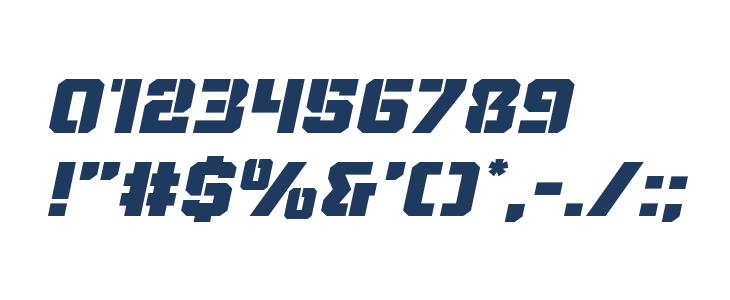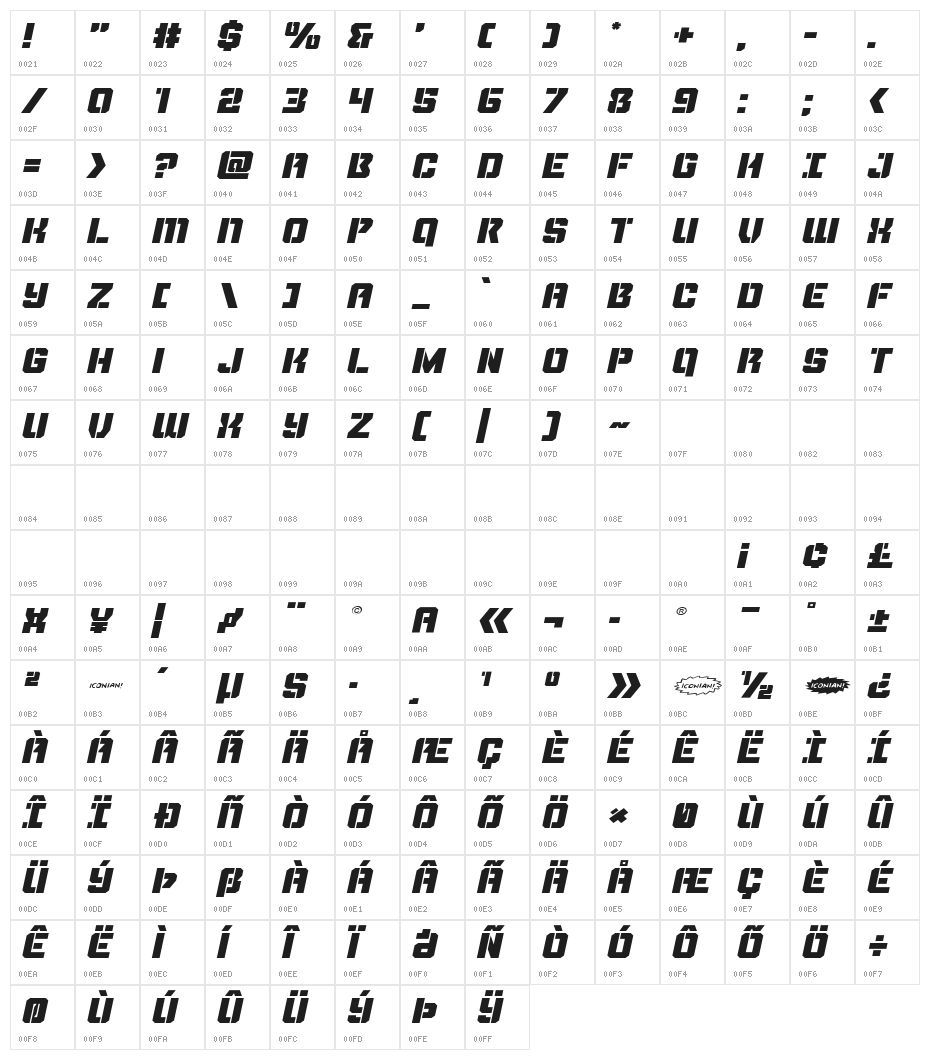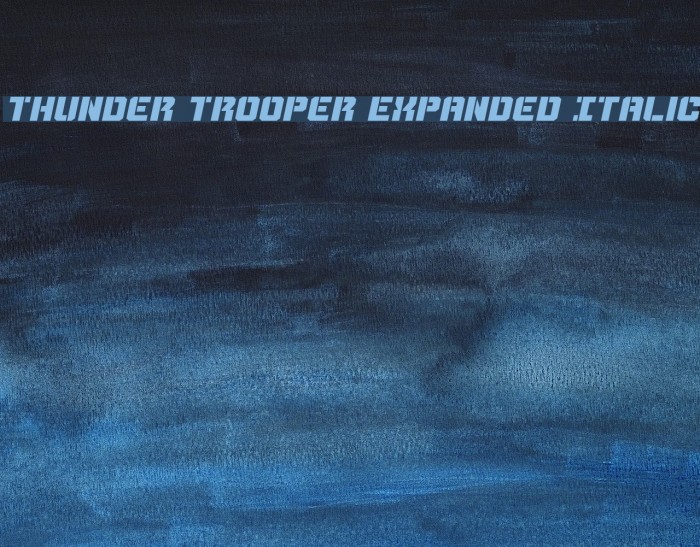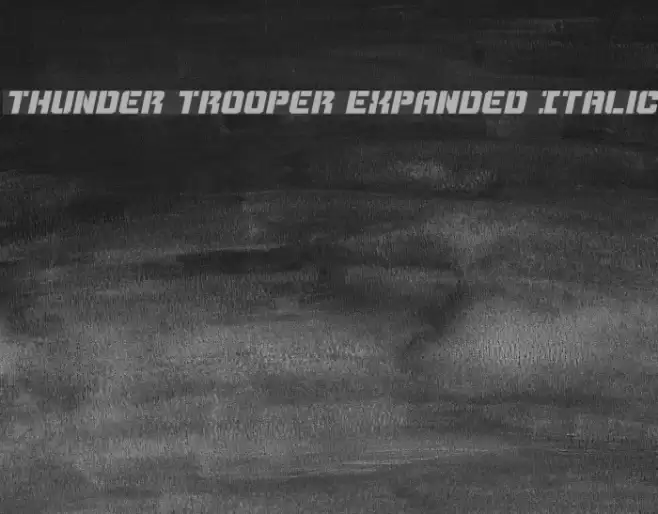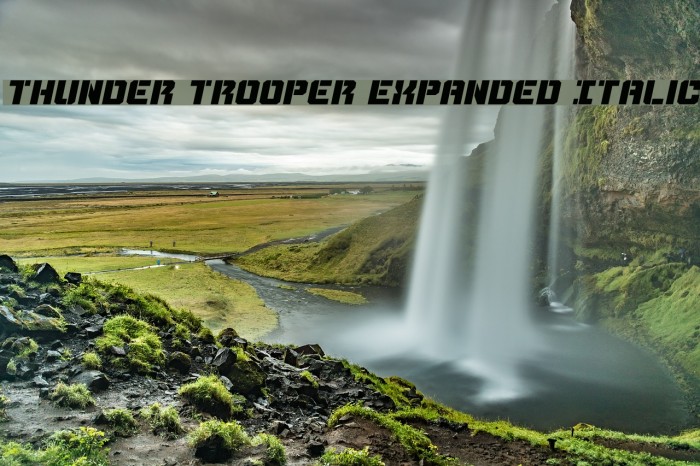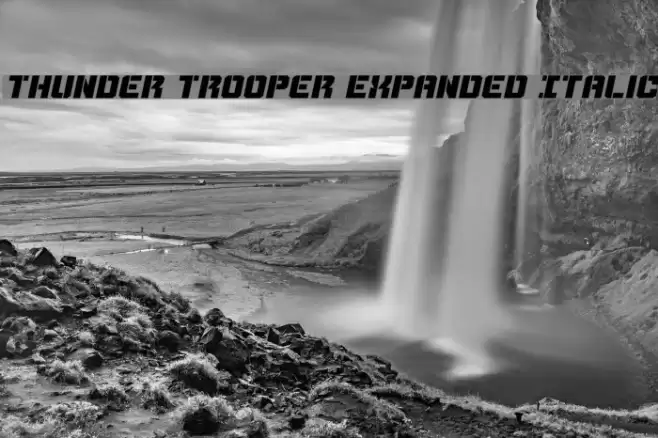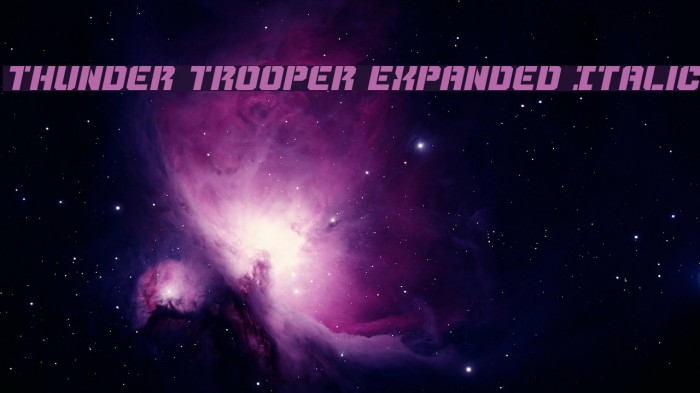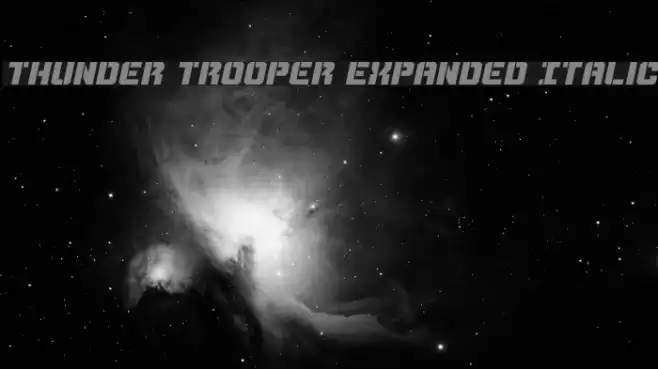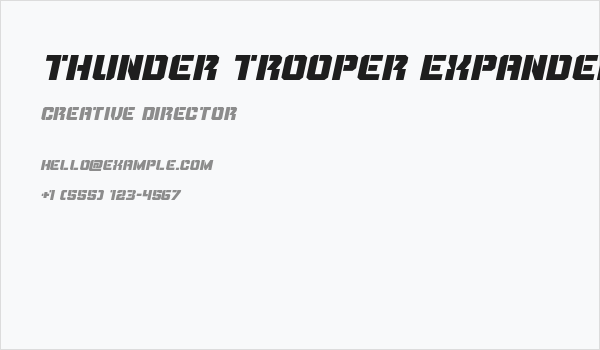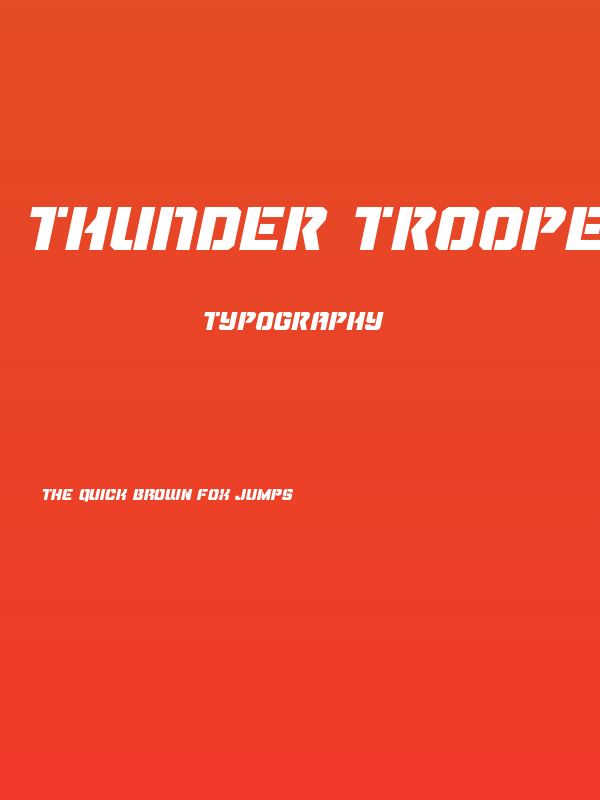
Thunder Trooper Expanded Italic Font
Thunder Trooper Expanded Italic Description
This font features a bold and dynamic design with a futuristic and angular appearance. The characters are sharply cut with a distinct slant, giving it an italicized look. The expanded width of the letters adds a sense of power and presence, making it ideal for impactful headlines. The geometric shapes and clean lines contribute to a modern and edgy style, suitable for projects that require a strong visual statement. The font maintains a consistent stroke thickness throughout, providing a uniform and cohesive appearance.
| Proposed Projects | Ideal for sci-fi themed posters, video game titles, sports branding, and dynamic advertising campaigns. |